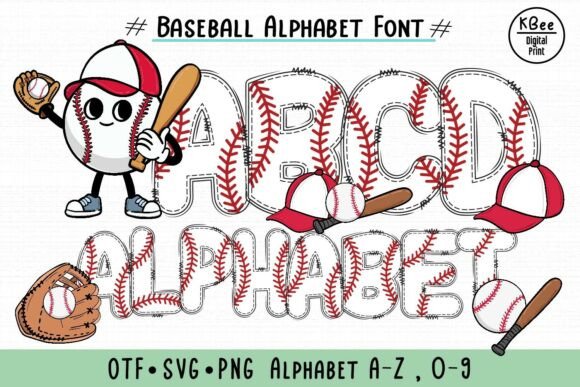
Baseball Alphabet Font
Hit a home run with the Baseball Alphabet Font! This fun and sporty font features bold letters stitched with classic red baseball seams, perfect for kids’ projects, sports-themed party invites, classroom decor, team banners, or playful apparel. With uppercase A–Z and numbers 0–9 available in OTF, SVG, and PNG, this font is a grand slam for crafters and designers alike.